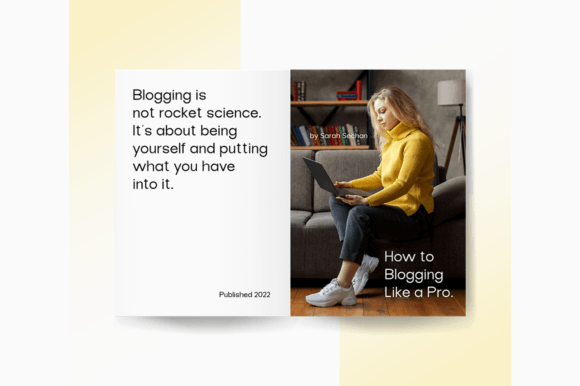
Mograph Font
Mograph is a minimal and modern sans serif font. It can easily be matched to an incredibly large set of projects, so add it to your creative ideas, and notice how it makes them stand out!